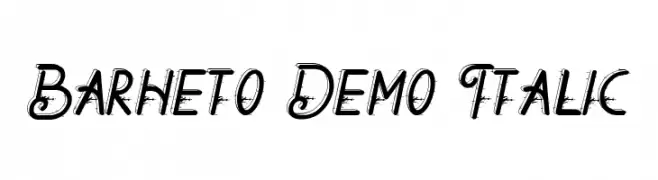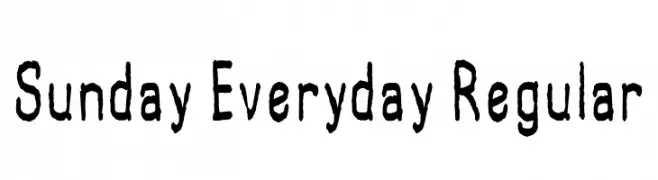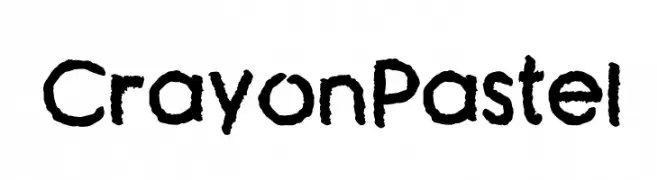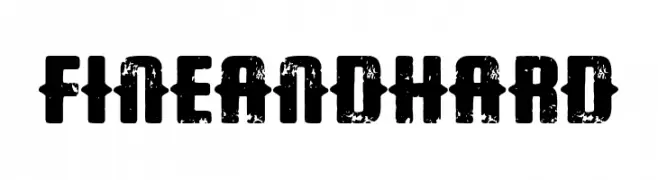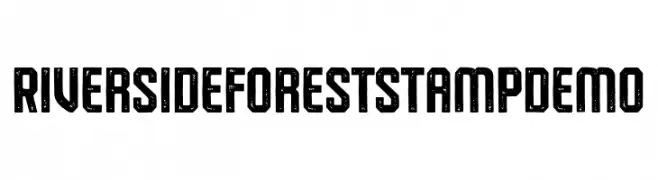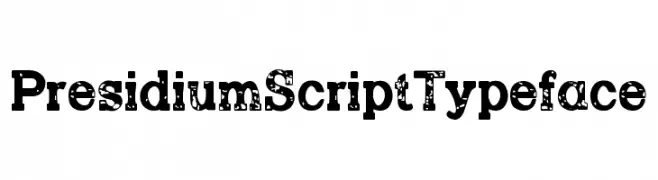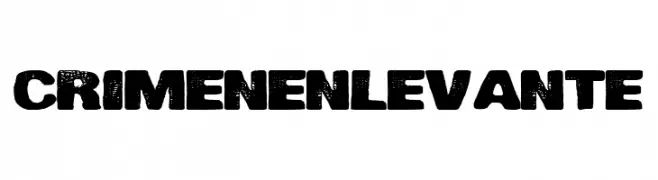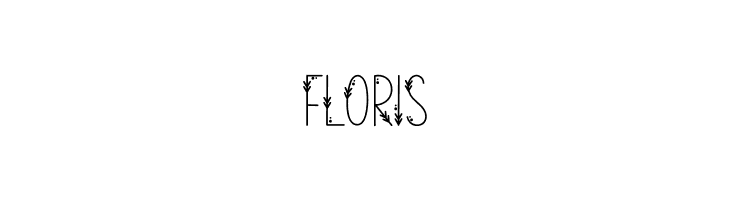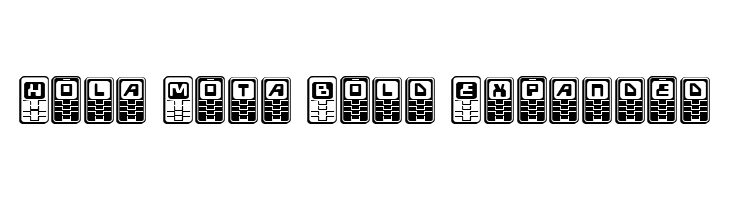
An italicized, decorative font with a hand-drawn, distressed texture.
A bold, decorative font with a grunge-like, distressed style.
A hand-drawn, rustic font with an organic and playful style.
A playful, hand-drawn style font with crayon-like texture.
A bold, distressed font with a rugged, textured appearance.
A bold, playful font with a hand-drawn, distressed texture.
A bold, distressed font with a vintage, rugged appearance.
A bold, decorative font with a distressed, vintage texture.
A bold, distressed slab serif font with a vintage, rugged appearance.
A bold, distressed font with a vintage, textured style.